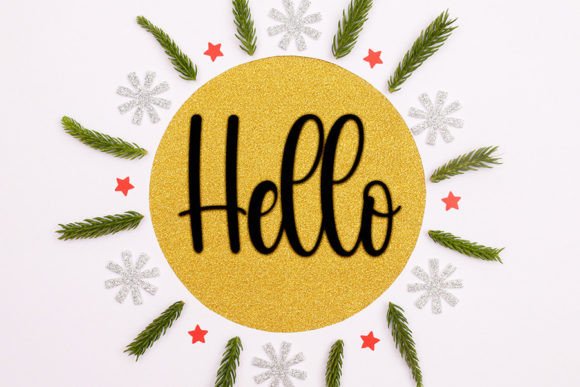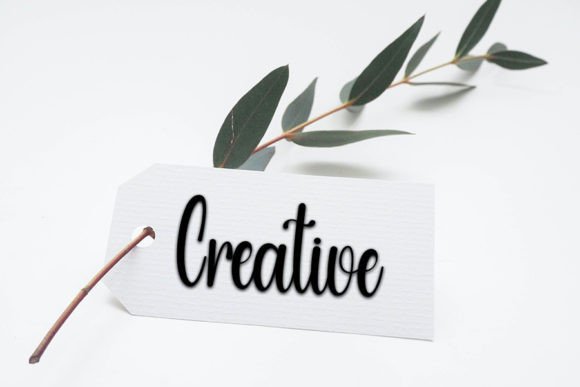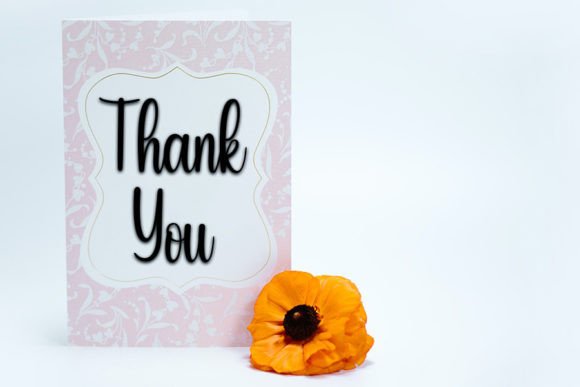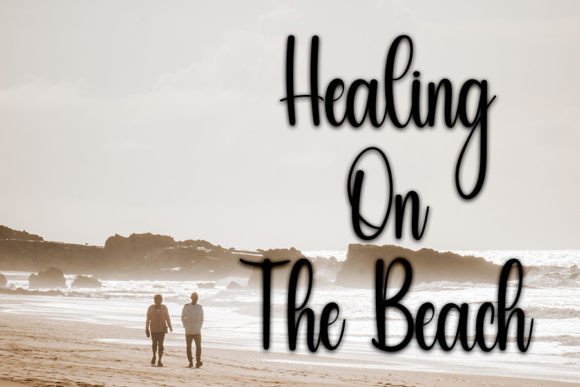
Rainbow Font
About Rainbow Font
**Rainbow** is a clean and beautiful handwritten font characterized by an elegant touch. It is the perfect choice for a wide range of creative projects, allowing you to infuse a distinct and timeless style into your work. Whether you’re working on invitations, posters, branding, or any other design endeavor, this font will add a touch of sophistication and charm to your creations.
The font’s elegant handwritten style is at the heart of its appeal. It brings an air of refinement and classic beauty to your designs, making them stand out and exude a timeless quality. Whether you’re crafting elegant invitations or designing artistic posters, **Rainbow** seamlessly integrates into a variety of design contexts.
**Rainbow** is equally versatile in digital and print applications. Whether you’re using it to create an elegant digital design or incorporating it into printed materials, the font retains its clean and timeless character. Its readability ensures that your message is conveyed effectively, while its handwritten style adds an extra layer of visual sophistication.
What sets **Rainbow** apart is its ability to convey a sense of elegance and classic beauty. It invites your audience to engage with your creative ideas in a way that resonates with its distinct and timeless quality. With **Rainbow** as part of your creative toolkit, you have the means to infuse a sense of sophistication and creativity into your designs, making them memorable and captivating.
**Rainbow** offers a wide range of customization options, allowing you to fine-tune your text to match your creative vision precisely. This flexibility empowers you to craft designs that align with your artistic preferences with precision.
In conclusion, **Rainbow** is more than just a font; it’s a design asset that elevates your creative projects with elegance, timelessness, and a touch of classic beauty. Embrace its elegant handwritten style, and let it inspire you to craft designs that exude sophistication and creativity. With **Rainbow** at your disposal, your creative possibilities are expansive, enabling you to create captivating and unforgettable works of art through its clean and beautifully crafted typography.